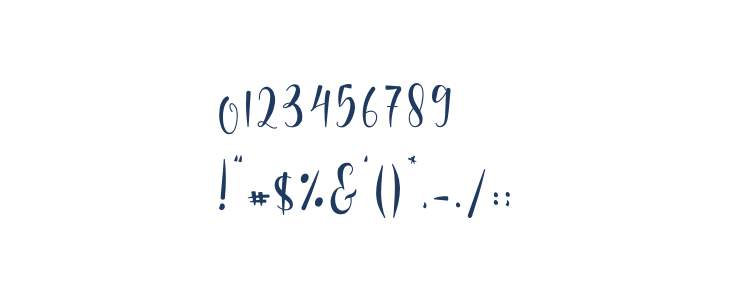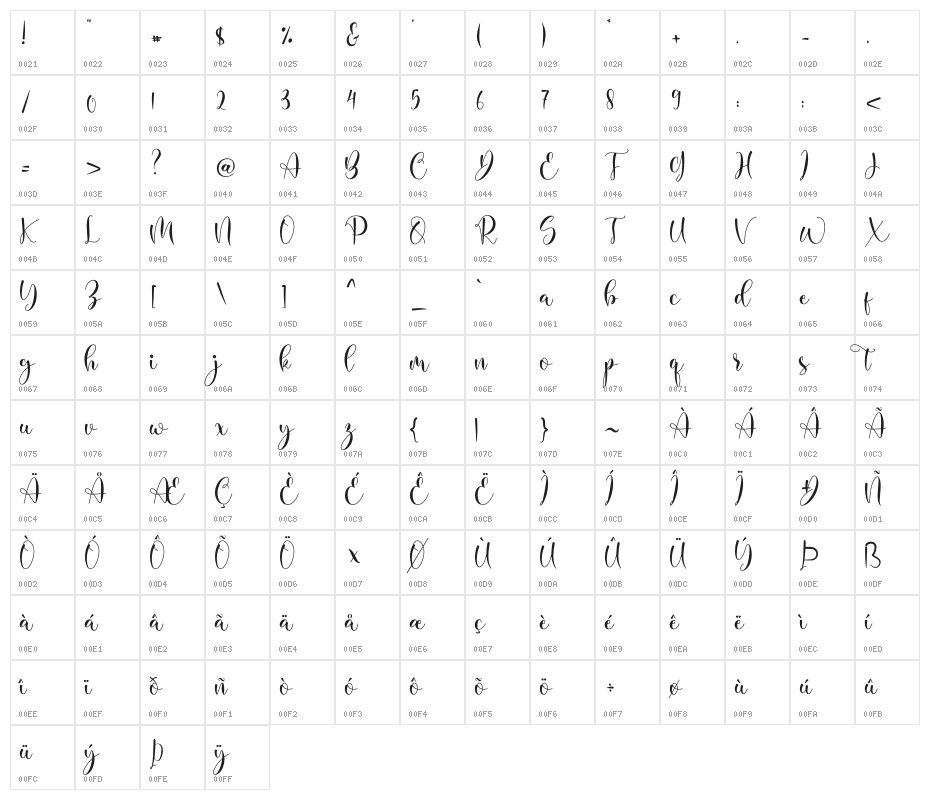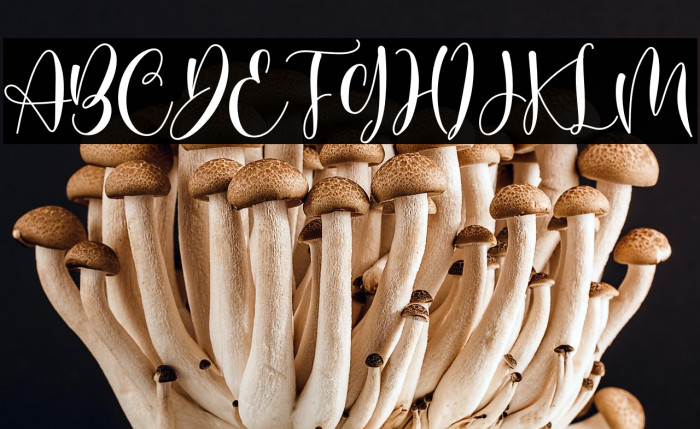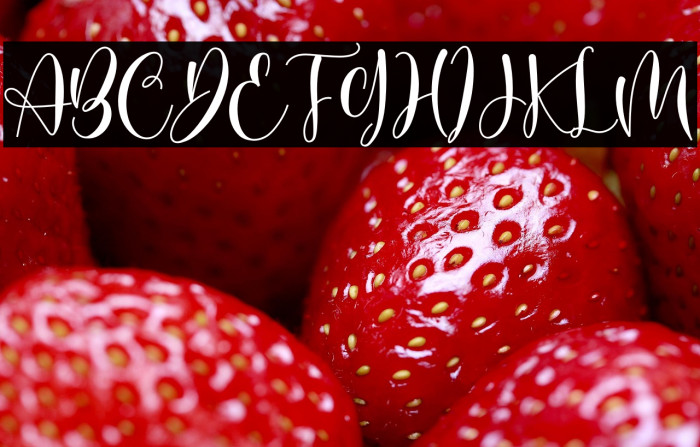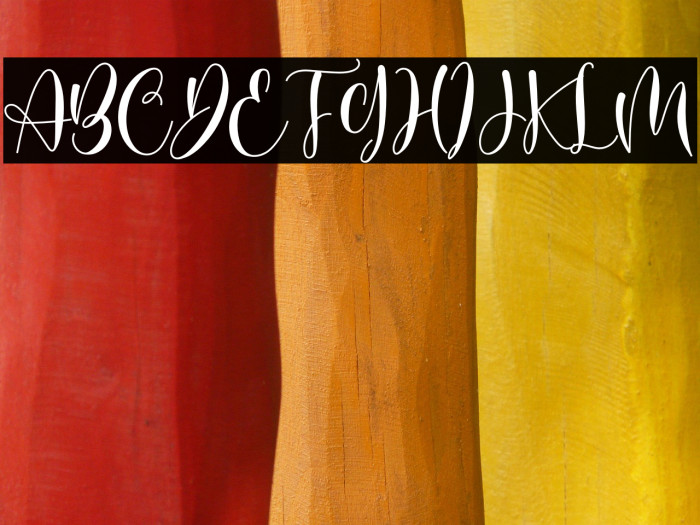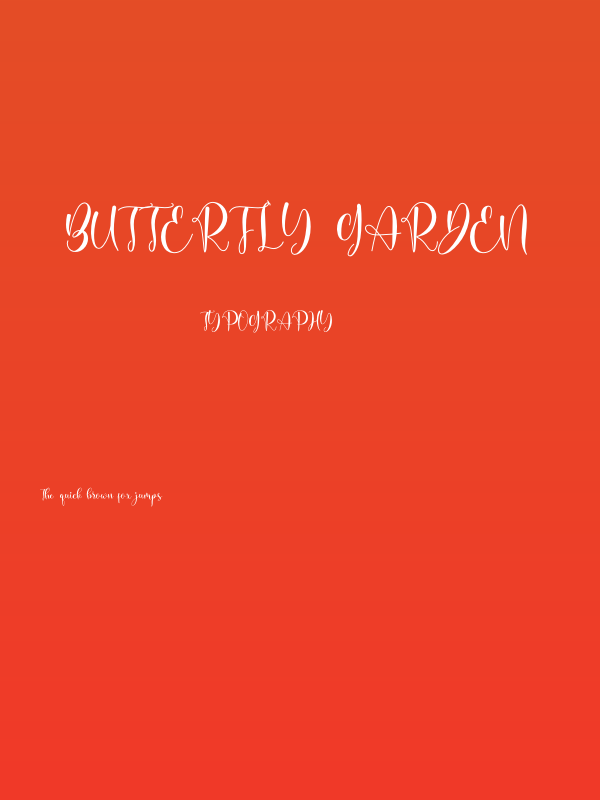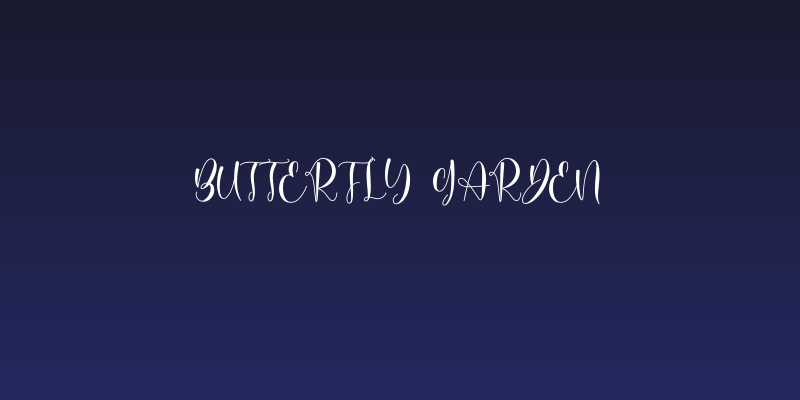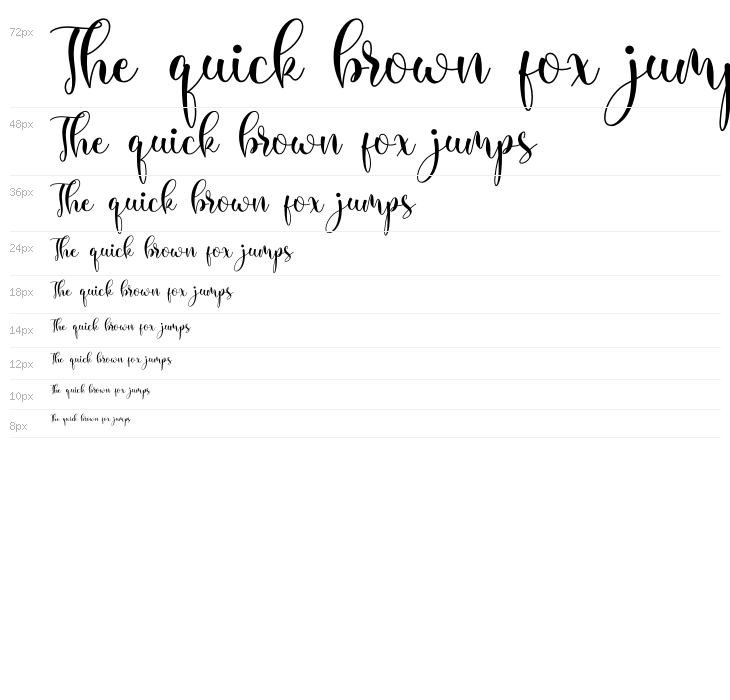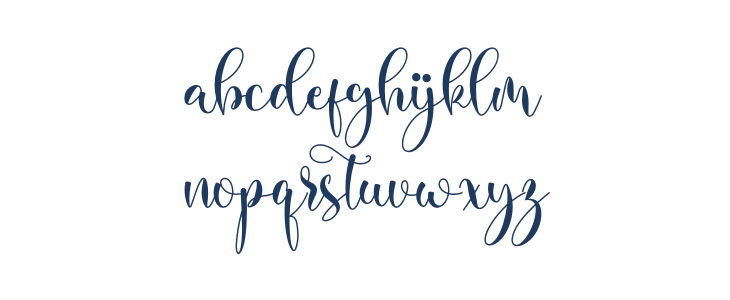
Butterfly Garden Font
Butterfly Garden Description
This font features an elegant, flowing script style with a handwritten feel. The uppercase letters are characterized by their sweeping curves and loops, giving a sense of movement and grace. Lowercase letters maintain a consistent style, with some characters featuring unique flourishes that add to the overall aesthetic. The numbers are designed to complement the letters, maintaining the same fluidity and style. Special characters are crafted with attention to detail, ensuring they blend seamlessly with the rest of the font. This font is perfect for projects that require a touch of sophistication and elegance, such as wedding invitations, greeting cards, and branding for luxury products.
| Overall Style | Elegant, Handwritten |